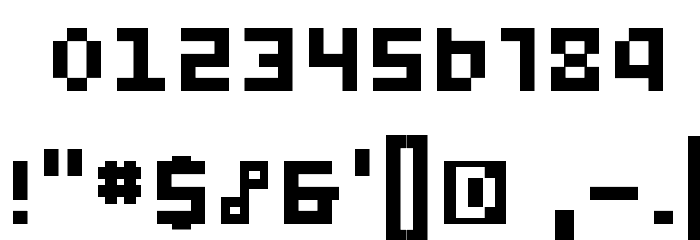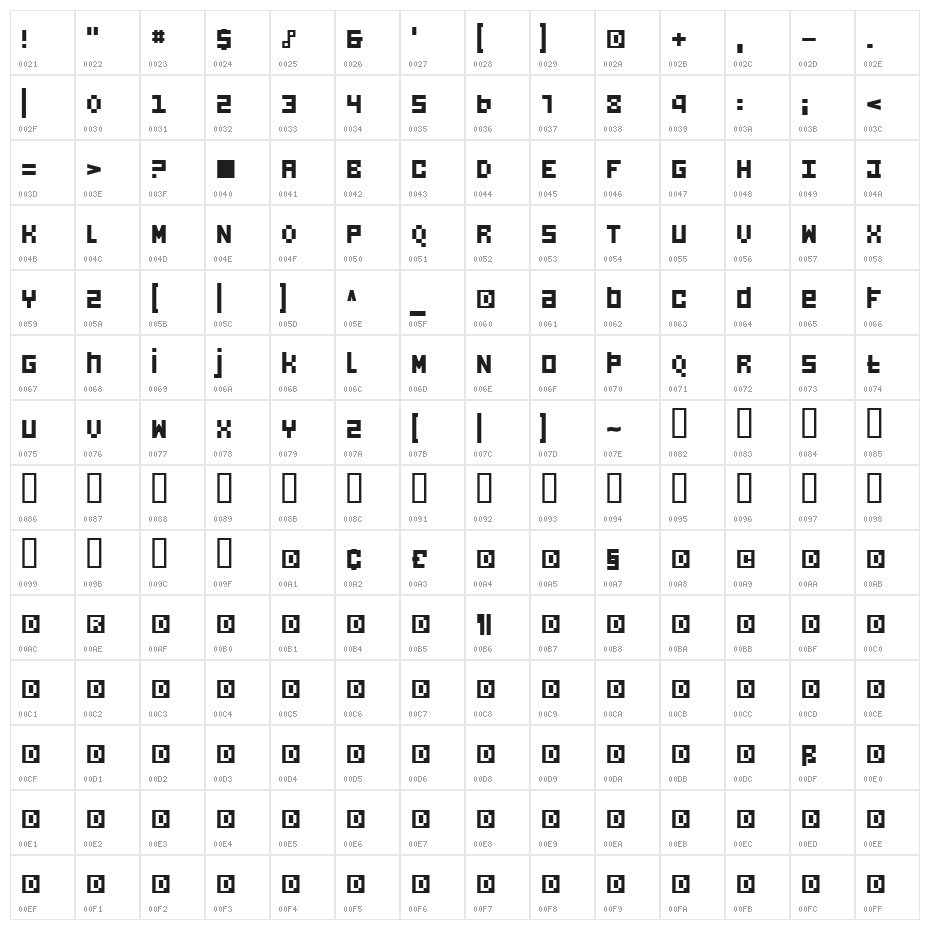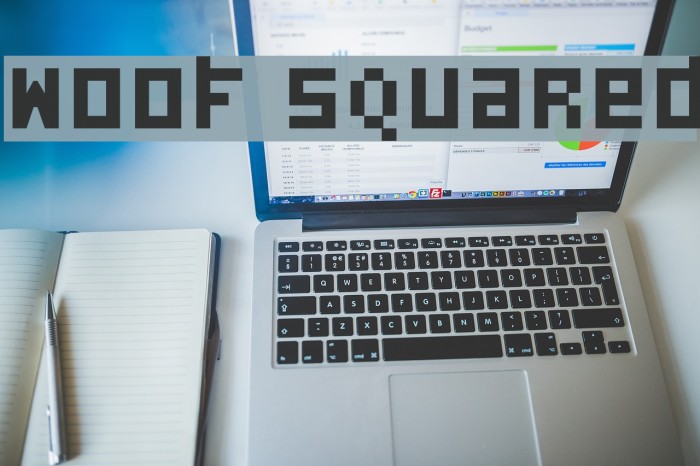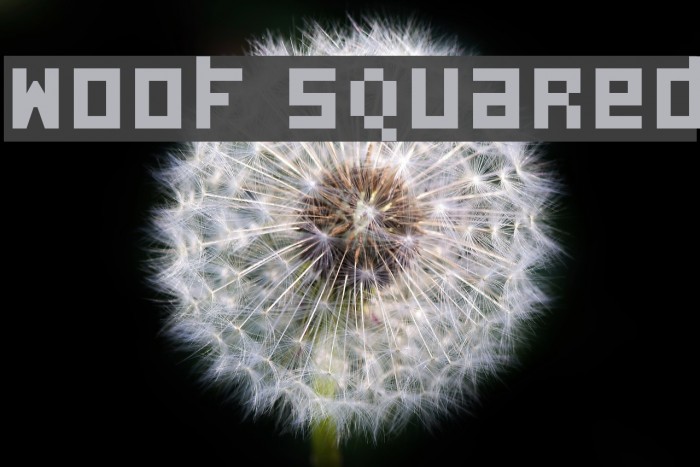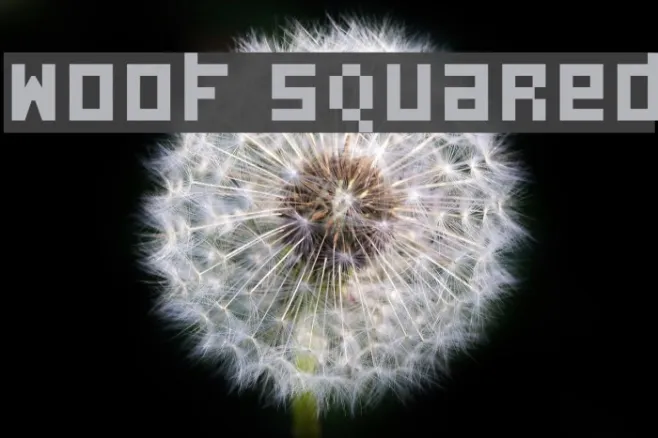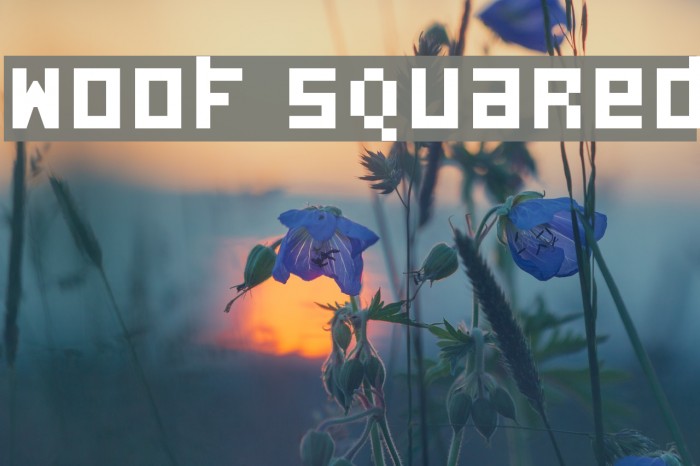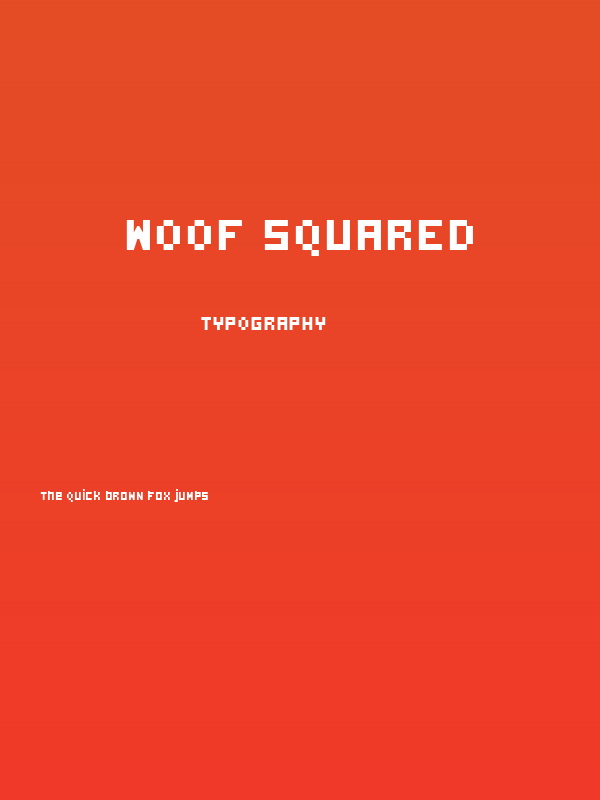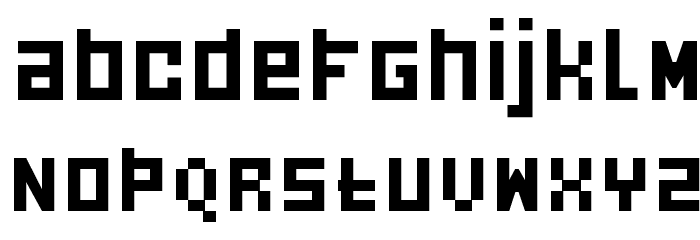
Woof Squared Font
Woof Squared Description
This font features a bold, geometric design with a distinctly pixelated appearance, reminiscent of early digital displays and video games. Each character is constructed with sharp, right-angled edges, creating a blocky and robust aesthetic. The uniformity in height and width across both uppercase and lowercase letters enhances its structured and cohesive look. The numerals and special characters maintain this consistent style, contributing to the font's overall retro and digital feel. Its strong visual impact makes it suitable for projects that require a modern yet nostalgic touch.
| Proposed Projects | Ideal for video game graphics, digital-themed posters, retro branding, and tech-related designs. |